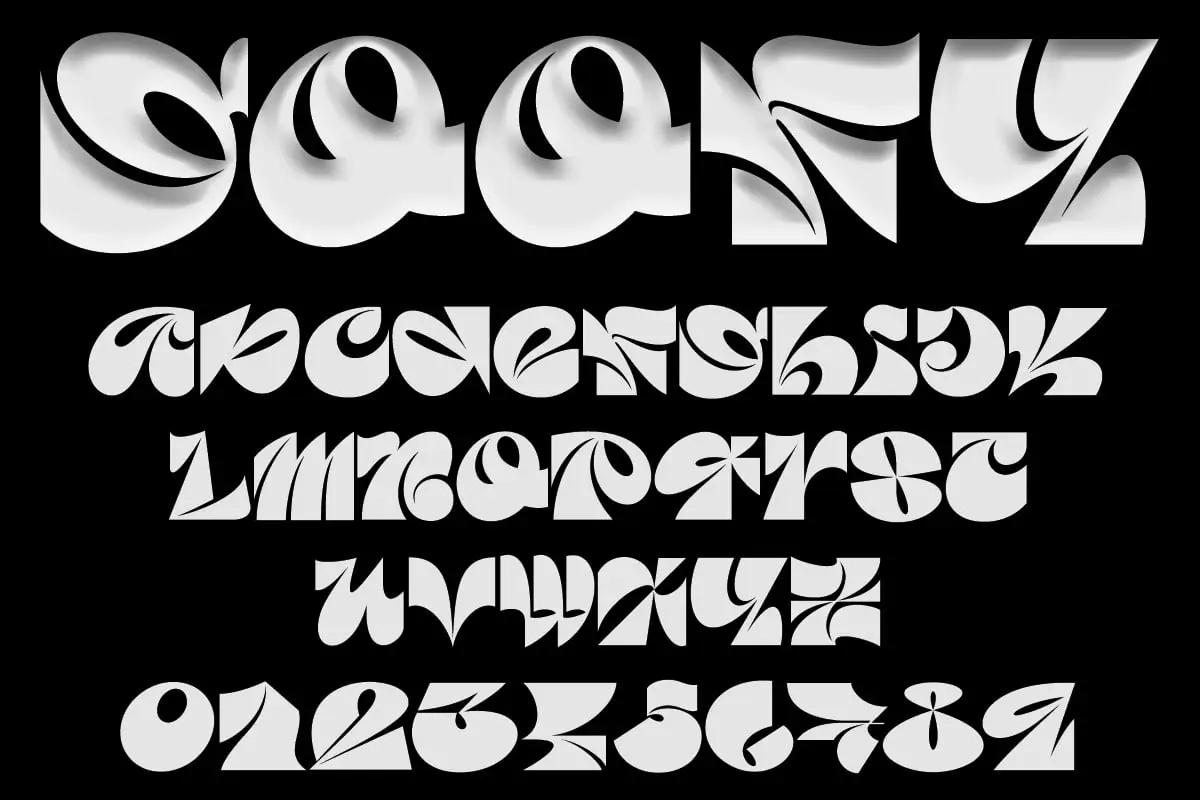
Goofy Font By Carmen Nácher
The Goofy Font by Carmen Nácher is a playful and whimsical typeface that adds a touch of fun to any design project. With its unique character shapes and lively personality, this font is perfect for creating eye-catching branding, logos, and promotional materials.
• Unique and playful letterforms
• Available in multiple weights
This font is ideal for use in children’s products, playful branding, and any design that aims to convey a light-hearted and friendly vibe. Consider pairing it with simpler fonts for contrast.